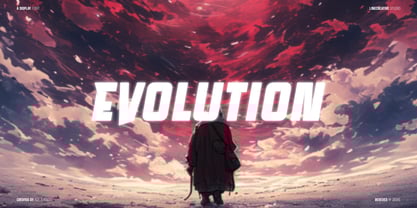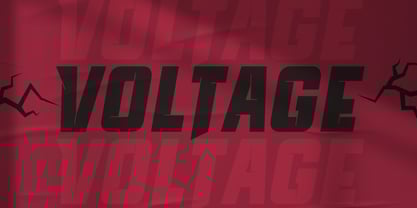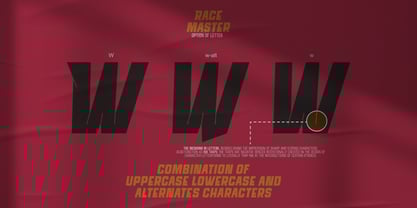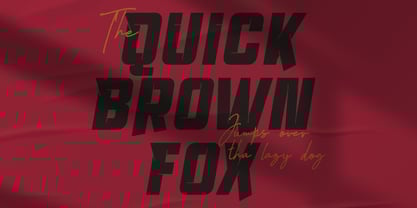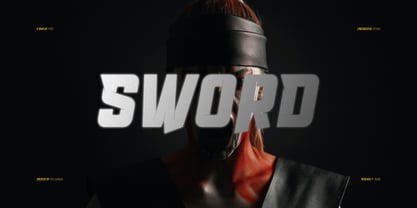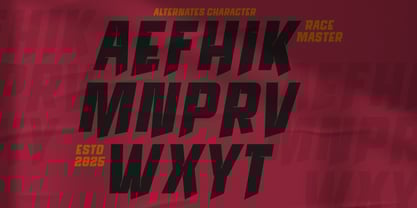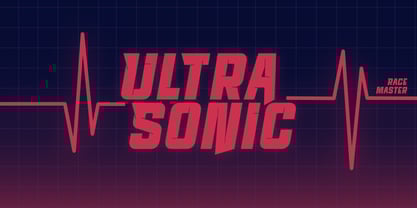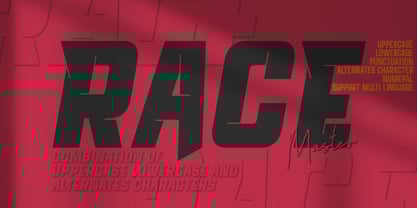
Race master
by Linecreative
The Race master Font Family was designed by Ari Juanda and published by Linecreative. Race master contains 1 styles.
Race Master is a bold oblique typeface designed with distinctive diagonal slices that create a sharp and powerful look. These dynamic cuts also serve as functional ink traps, ensuring clarity and precision in print. The font comes with a selection of alternate characters, giving designers versatile options for creating unique and impactful typographic compositions. Perfect for racing themes, sports branding, and bold editorial headlines, Race Master combines speed-inspired energy with modern typographic craftsmanship.
Designers: Ari Juanda
Publisher: Linecreative
Foundry: Linecreative
Design Owner: Linecreative